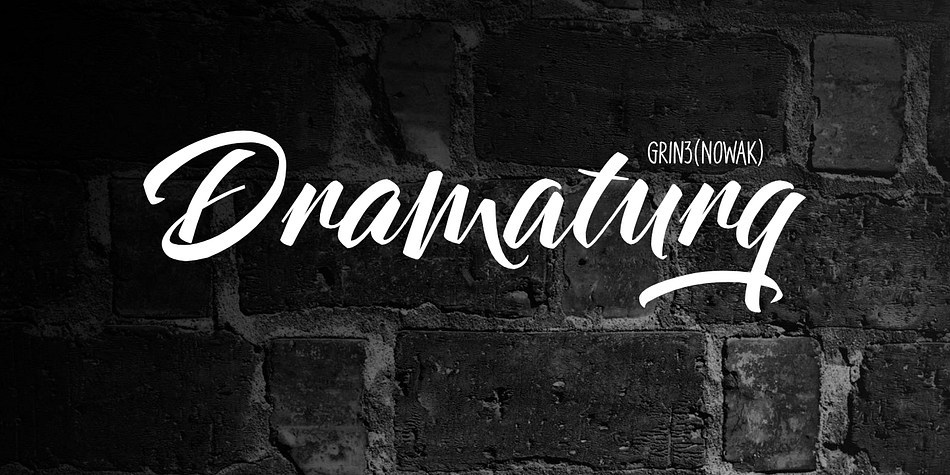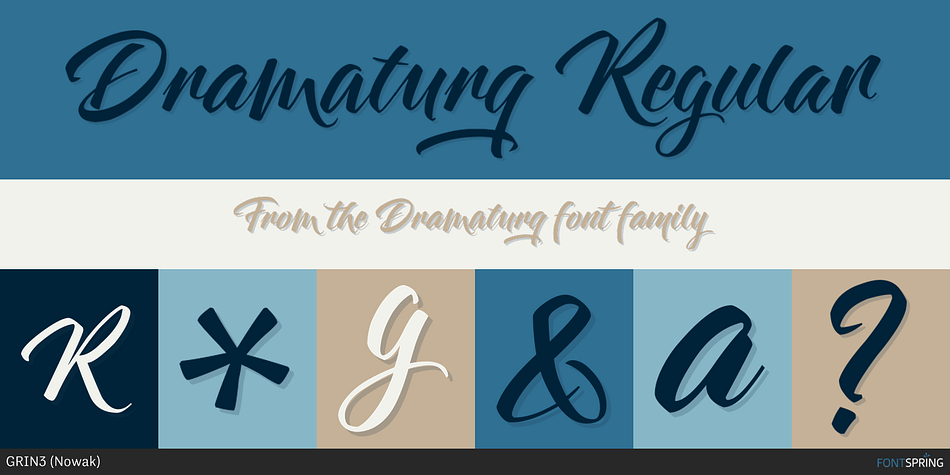
Dramaturg Regular
Designed by Bartek Nowak, Dramaturg is a brush script and hand display font family. This typeface has four styles and was published by GRIN3 (Nowak).
Dramaturg is a handwritten, brush, fully connected script with ligatures and contextual alternates to help with flow and readability.
Dramaturg /regular is the most complete style, it contains over 600 glyphs, 7 stylistic sets, contextual alternates and ligatures. Every lowercase letter has six variations (uppercase letter has four). When the font is used in OpenType-savvy applications, the 3 variants of glyphs are automatically alternated to achieve a random-like effect.
Dramaturg A and Dramaturg B have less glyphs than the Regular (no stylistic sets), they only contain some selected alternates and ligatures.